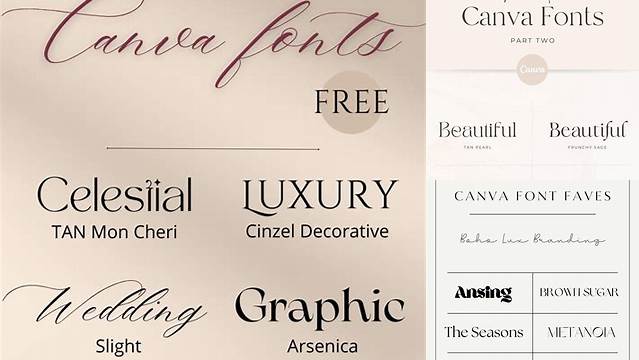
Elegant & Free Fonts For Canva: Design Like A Pro!
Hey guys! Ever feel like your Canva designs are missing that oomph? A killer font can be the secret sauce. We're diving deep into the world of elegant font free Canva offers, so you can create stunning visuals without spending a dime. Let's get started and turn those designs from drab to fab!
1. Understanding the Importance of Elegant Fonts in Design
When it comes to design, choosing the right font is like picking the perfect outfit for an occasion. The font sets the tone, conveys the message, and adds personality to your creation. Elegant font free Canva options are particularly crucial because they can elevate your designs from looking amateurish to professional and sophisticated. Think about it: a sleek, modern font on a business card screams professionalism, while a delicate script font on a wedding invitation exudes romance. The visual impact of a carefully selected font can make all the difference in how your audience perceives your brand or message. It's not just about aesthetics; it's about communicating effectively and making a lasting impression. So, understanding the nuances of different elegant font free Canva choices is the first step to creating designs that truly shine. What makes a font elegant anyway? It's often a combination of factors like clean lines, graceful curves, and a sense of timelessness. These fonts can add a touch of class to anything from social media graphics to website headers. They are the secret weapon for designers who want to convey sophistication and style. And the best part? Many of these elegant font free Canva options are readily available, making it easy to create stunning designs without breaking the bank. So, next time you're working on a project, take a moment to consider the font you're using. It's a small detail that can have a massive impact on the overall success of your design.
2. Top 5 Elegant Serif Fonts Available for Free in Canva
Serif fonts, with their little decorative strokes at the ends of letters, often exude a sense of tradition and sophistication. They are a classic choice for elegant font free Canva users looking to add a touch of formality to their designs. Let's dive into the top 5 free serif fonts that Canva offers, perfect for everything from logos to body text. First up is Playfair Display, a versatile font that works beautifully for headlines and titles. Its high contrast and elegant letterforms make it a standout choice for adding a touch of class. Next, we have Lora, a well-balanced and readable serif that's perfect for longer blocks of text. Its contemporary feel makes it a great option for websites and print materials alike. Then there's Libre Baskerville, a font inspired by the classic Baskerville typeface. Its clean lines and elegant curves make it a timeless choice for elegant font free Canva designs. For something a bit more unique, consider Oswald. While technically a sans-serif, its geometric design and classic proportions give it a sophisticated edge. It's a fantastic option for headlines and branding materials. Last but not least, we have Arvo, a slab-serif font that's both modern and elegant. Its strong presence makes it ideal for logos and eye-catching headings. Each of these elegant font free Canva serif fonts brings its own unique flavor to the table, so experiment and see which one best suits your design needs. Remember, the right font can elevate your work and help you create a lasting impression. So, take advantage of these fantastic free options and start designing like a pro!
3. Exploring Sans-Serif Options for a Modern Elegant Look in Canva
Sans-serif fonts, known for their clean, minimalist appearance, can bring a modern twist to your designs while still maintaining an elegant feel. If you're aiming for a sleek and contemporary look, exploring elegant font free Canva sans-serif options is a must. These fonts are perfect for conveying a sense of sophistication without the traditional flourishes of serif fonts. One standout example is Montserrat, a widely popular sans-serif that exudes modern elegance. Its clean lines and geometric shapes make it a versatile choice for everything from logos to body text. Montserrat's clarity ensures readability while maintaining a polished aesthetic. Another excellent choice is Raleway, a sleek and sophisticated font with a slightly more delicate feel. Its elegant letterforms make it ideal for headlines and branding materials. Raleway strikes a perfect balance between modern and classic, making it a go-to for many designers. For a more minimalist approach, consider Open Sans. This highly readable font is perfect for body text and longer blocks of content. Its clean and simple design ensures that your message is conveyed clearly and effectively. If you're looking for something with a bit more personality, Poppins is a great option. This geometric sans-serif has a modern and friendly feel, making it perfect for a wide range of design projects. Its versatility allows it to be used in both headlines and body text, making it a valuable addition to your font arsenal. Lastly, Lato offers a unique blend of warmth and elegance. Its semi-rounded details give it a friendly yet professional appearance, making it an excellent choice for business communications and marketing materials. By exploring these elegant font free Canva sans-serif options, you can achieve a modern and sophisticated look that sets your designs apart. Remember, the key is to choose a font that aligns with your brand's personality and the message you want to convey. With Canva's wide selection of free sans-serif fonts, you're sure to find the perfect fit for your next project.
4. Script Fonts: Adding a Touch of Handwriting Elegance in Canva
Script fonts, with their flowing and cursive-like strokes, can add a touch of handwriting elegance to your designs. If you're looking to create a more personal and artistic feel, exploring elegant font free Canva script options is a fantastic way to go. These fonts are perfect for invitations, quotes, and anything that needs a touch of handwritten charm. One of the most popular script fonts available for free in Canva is Great Vibes. This beautifully flowing script exudes sophistication and is perfect for adding a touch of elegance to wedding invitations, logos, and other design projects. Its graceful letterforms make it a standout choice for creating a memorable impression. Another excellent option is Alex Brush, a slightly bolder script font that maintains a high level of elegance. Alex Brush is perfect for headlines and titles, adding a touch of flair without sacrificing readability. Its strong presence makes it ideal for drawing attention to key elements in your design. For a more delicate and refined look, consider Pacifico. This flowing script has a relaxed yet elegant feel, making it perfect for branding materials, social media graphics, and more. Pacifico's smooth lines and graceful curves create a sense of effortless style. If you're looking for something with a bit more personality, Playlist Script is a great choice. This brush-style script has a modern and casual feel, making it perfect for adding a touch of handwritten charm to your designs. Playlist Script is ideal for quotes, social media posts, and anything that needs a personal touch. Lastly, for a classic and timeless script, consider Dancing Script. This elegant font has a playful yet sophisticated feel, making it perfect for a wide range of design projects. Dancing Script's versatility allows it to be used in both formal and informal contexts. When using elegant font free Canva script fonts, it's important to remember that readability is key. Use them sparingly and pair them with a more legible font for body text to ensure that your message is clear and effective. With Canva's wide selection of free script fonts, you can easily add a touch of handwriting elegance to your designs.
5. Combining Different Elegant Fonts for Visual Harmony in Canva
Creating visual harmony in your designs often comes down to the art of combining fonts effectively. Mixing and matching elegant font free Canva options can elevate your designs, but it's crucial to do it right. The goal is to create a balanced and visually appealing composition that enhances your message, not distracts from it. One fundamental rule is to pair a serif font with a sans-serif font. This creates a pleasing contrast that's easy on the eyes. For example, you might pair Playfair Display (a serif) for your headline with Open Sans (a sans-serif) for your body text. This combination offers a classic and readable look. Another effective strategy is to use different weights and styles within the same font family. If you're using Montserrat, for instance, you could use Montserrat Bold for headlines and Montserrat Regular for body text. This provides visual interest while maintaining a cohesive look. When working with script fonts, it's essential to use them sparingly and pair them with a highly legible font. A script font like Great Vibes can be stunning for a headline, but pairing it with Open Sans or Raleway for the body text ensures readability. Avoid using multiple script fonts in the same design, as this can quickly become overwhelming. Consider the mood and tone you want to convey. If you're designing something formal and elegant, a classic serif and sans-serif pairing might be the way to go. For a more modern and approachable design, you might opt for a sans-serif pairing or a bold sans-serif with a simpler one. Think about hierarchy. Your headline font should be visually dominant, while your body text should be easy to read. Using different font sizes and weights can help establish a clear visual hierarchy. Experiment with different combinations and don't be afraid to break the rules. However, always prioritize readability and visual balance. With the right font pairings, you can create elegant font free Canva designs that are both beautiful and effective.
6. Where to Find More Elegant Fonts for Canva (Free Resources)
7. Utilizing Font Pairing Tools for Elegant Design in Canva
8. The Psychology of Fonts: Choosing the Right Elegant Font
9. Elegant Fonts for Logos: Making a Lasting Impression in Canva
10. Elegant Fonts for Social Media Graphics in Canva
11. Creating Wedding Invitations with Elegant Fonts in Canva
12. Designing Business Cards with Elegant Fonts in Canva
13. Elegant Fonts for Presentations: Canva Templates and Tips
14. Elegant Fonts for eBooks and Printables in Canva
15. Mastering Typography: Elegant Font Free Canva Edition
16. Elegant Font Free Canva: Best Practices for Readability
17. Elegant Fonts for Website Headers and Banners in Canva
18. Elegant Fonts for Posters and Flyers in Canva
19. Elegant Fonts for Branding Materials in Canva
20. How to Upload Your Own Elegant Fonts to Canva (If Needed)
21. Troubleshooting Font Issues in Canva: A Guide for Elegant Designs
22. Elegant Font Free Canva: The Impact of Kerning and Leading
23. Elegant Fonts for Quotes and Typography Art in Canva
24. Elegant Fonts for Resumes and Cover Letters in Canva
25. Elegant Fonts for Educational Materials in Canva
26. Elegant Fonts for Personal Projects and Crafts in Canva
27. Elegant Font Free Canva: Accessibility Considerations
28. The Future of Elegant Fonts in Design: Canva Trends
29. Elegant Font Free Canva: Mobile Design Considerations
30. Showcasing Your Elegant Designs: Canva Portfolio Tips